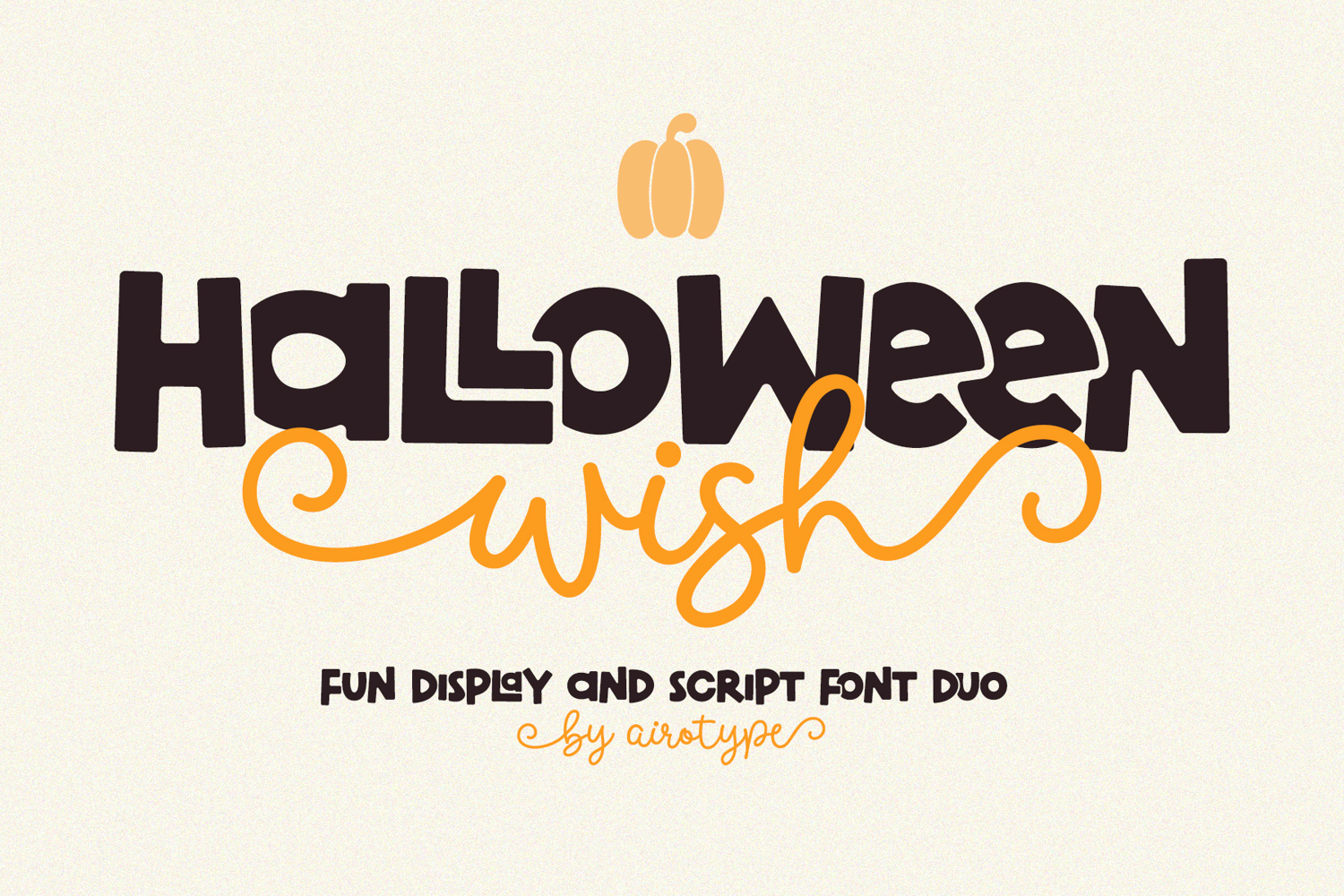
Halloween Wish is sweet and fun font duo, combining monoline script font with swash, and all caps display font with tons of overlap ligatures. This font duo is effortlessly stylish, playful, and joyful